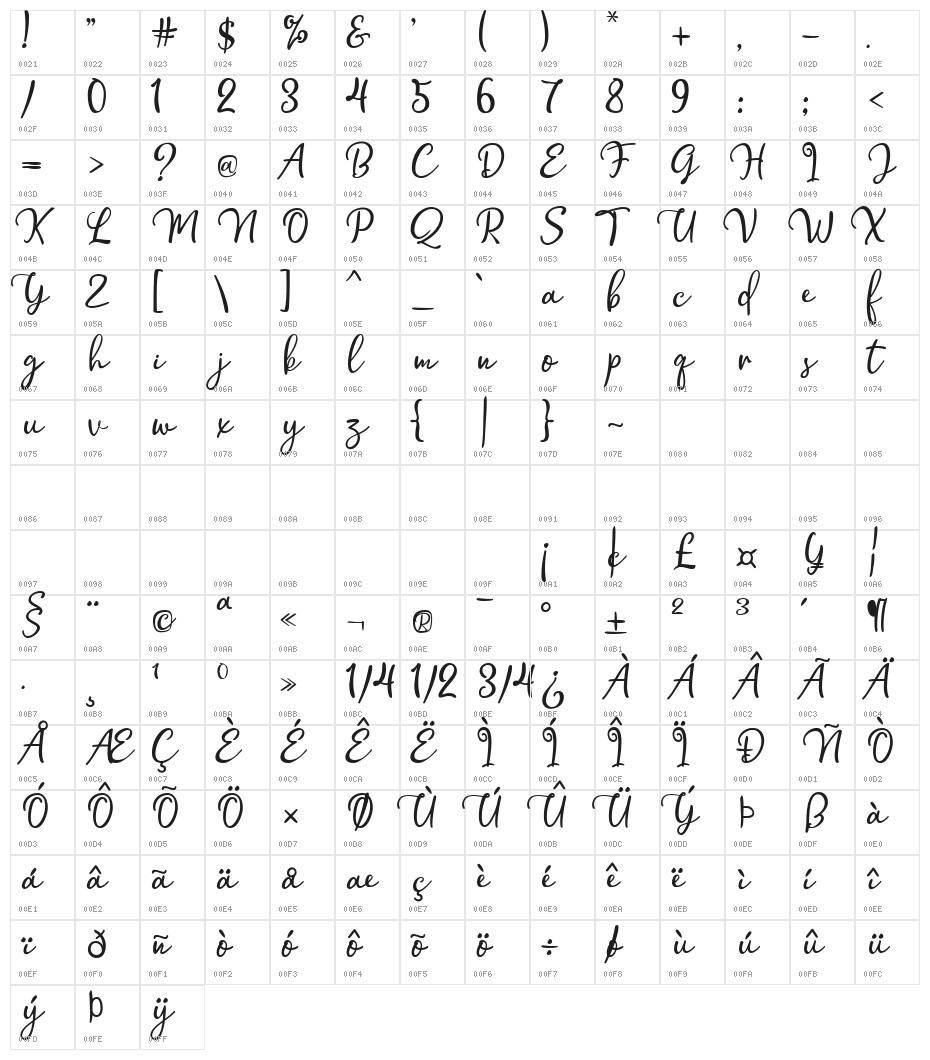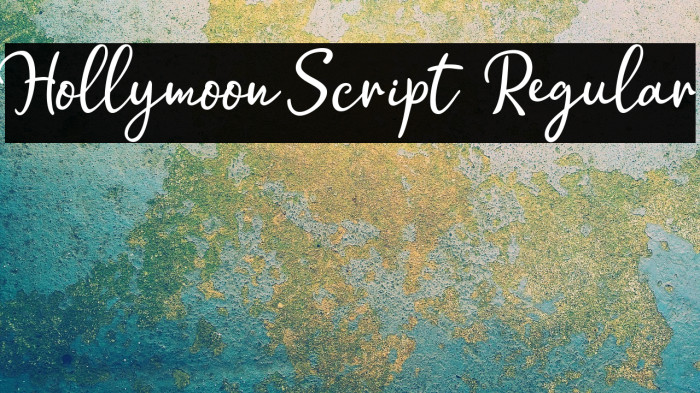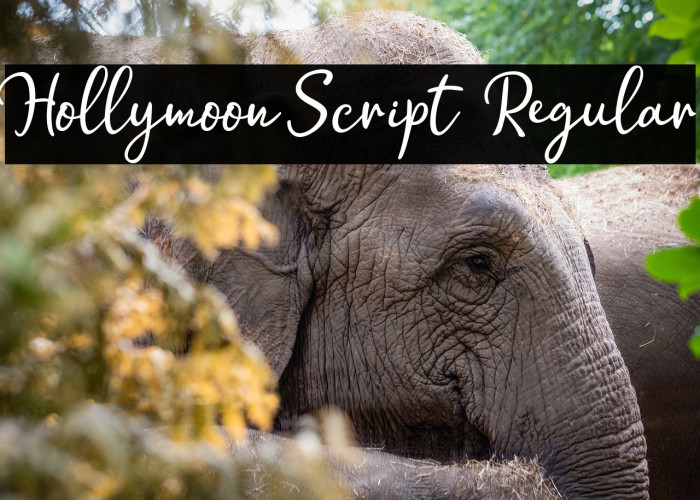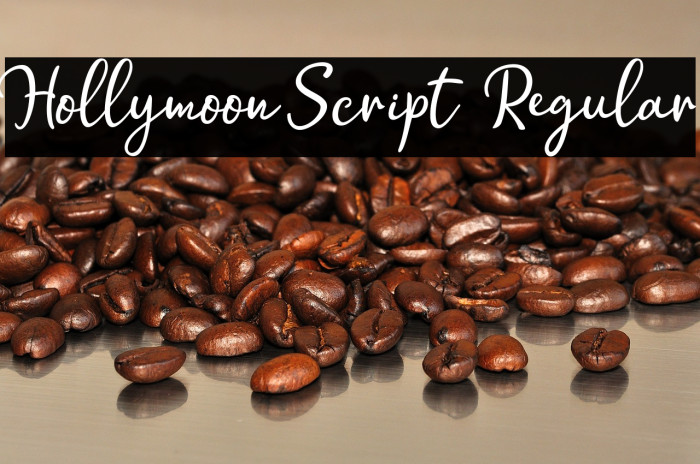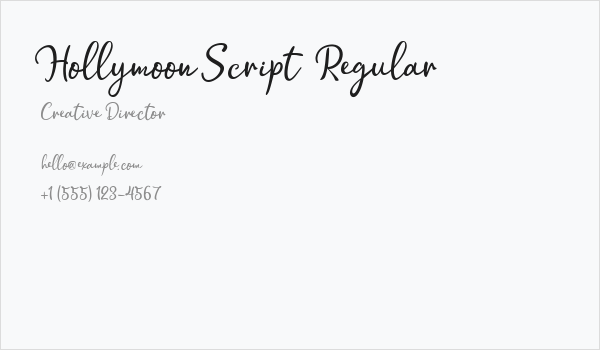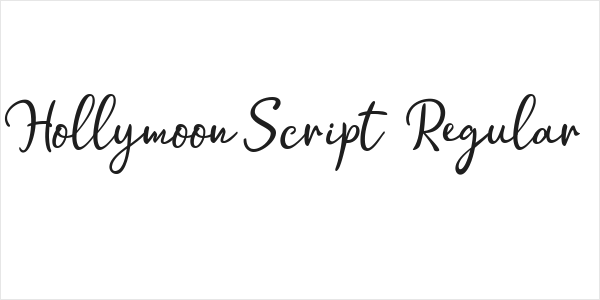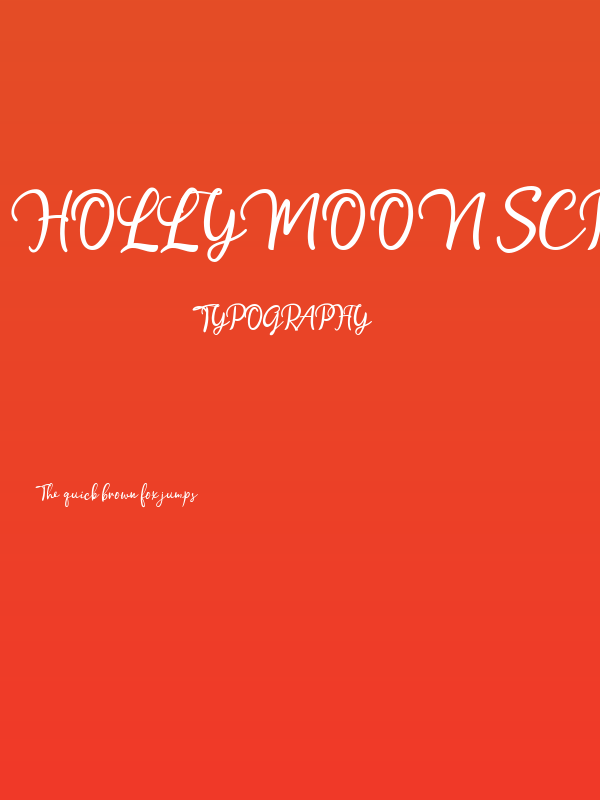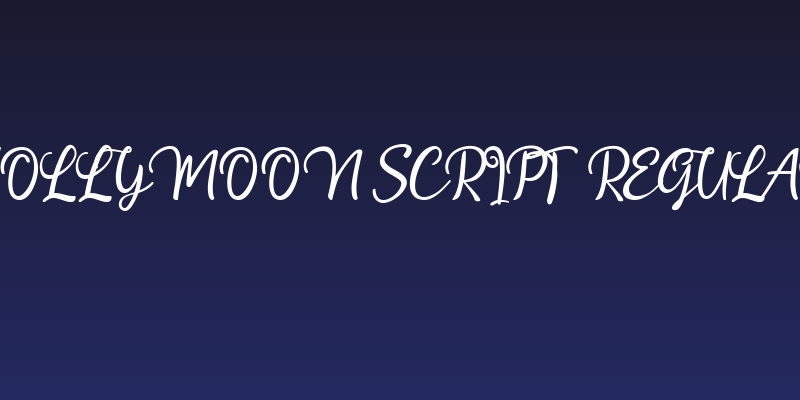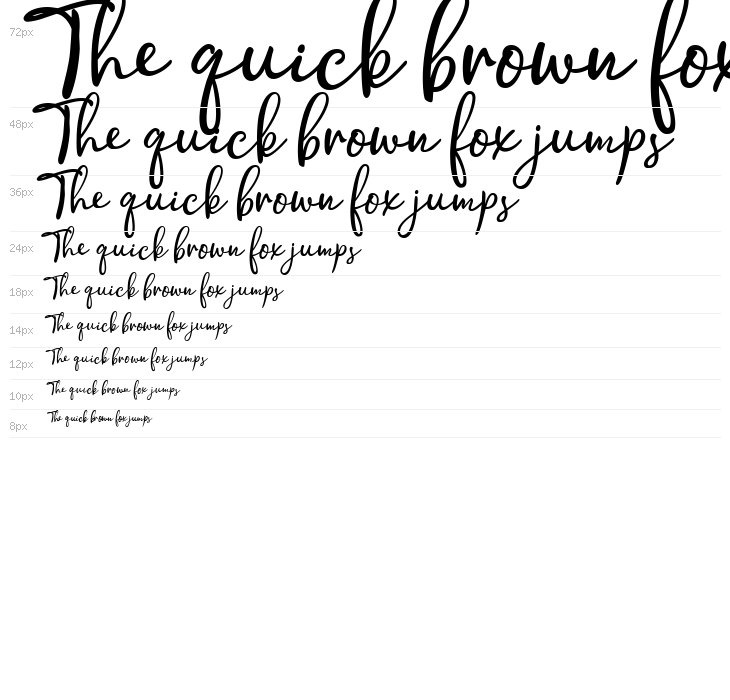
Hollymoon Script Regular Font
Hollymoon Script Regular Description
This script font features a flowing, elegant style with smooth, connected strokes that mimic the fluidity of handwriting. The uppercase letters are bold and expressive, with a slight slant that adds a dynamic feel. Lowercase letters maintain a consistent style, with loops and curves that enhance the handwritten aesthetic. The numerals are clear and legible, complementing the overall script style. Special characters are designed to match the font's elegant and playful nature, making it suitable for creative and decorative purposes.
| Use Case | Logos, Invitations, Greeting Cards |
| Proposed Projects | Ideal for wedding invitations, greeting cards, branding projects, and any design that requires a personal, elegant touch. |